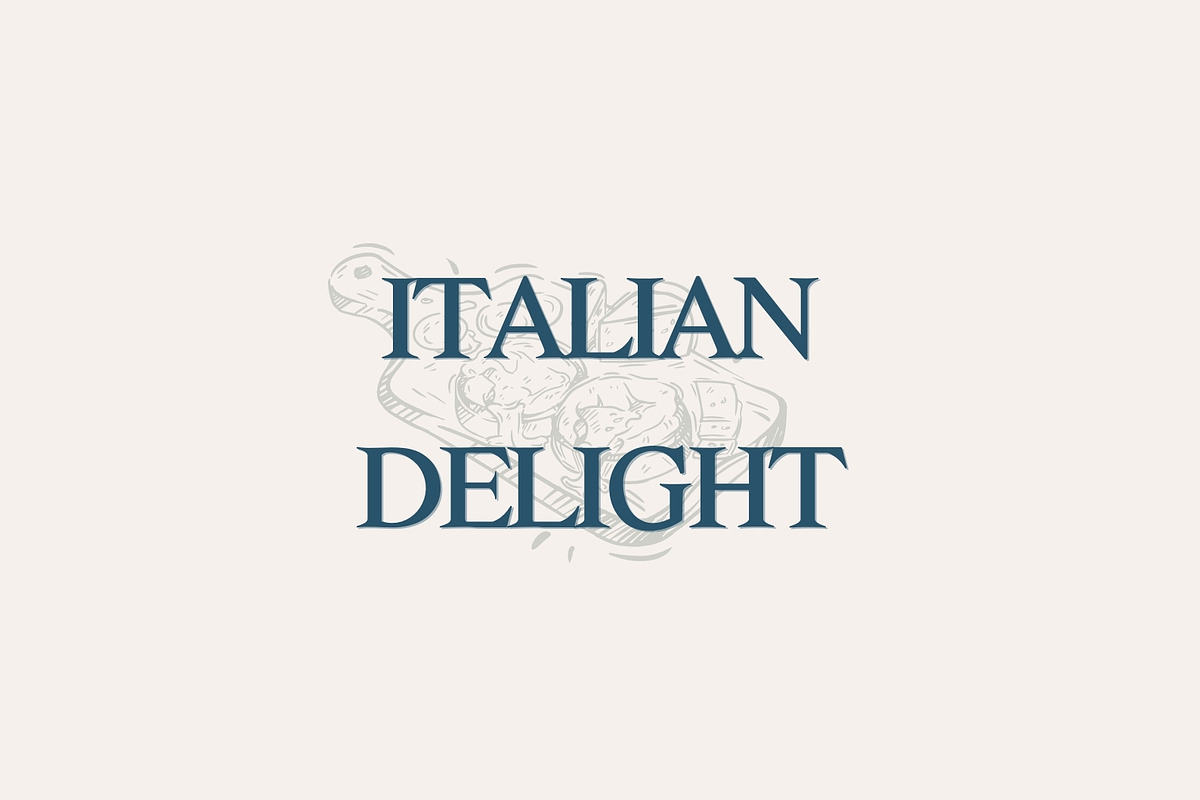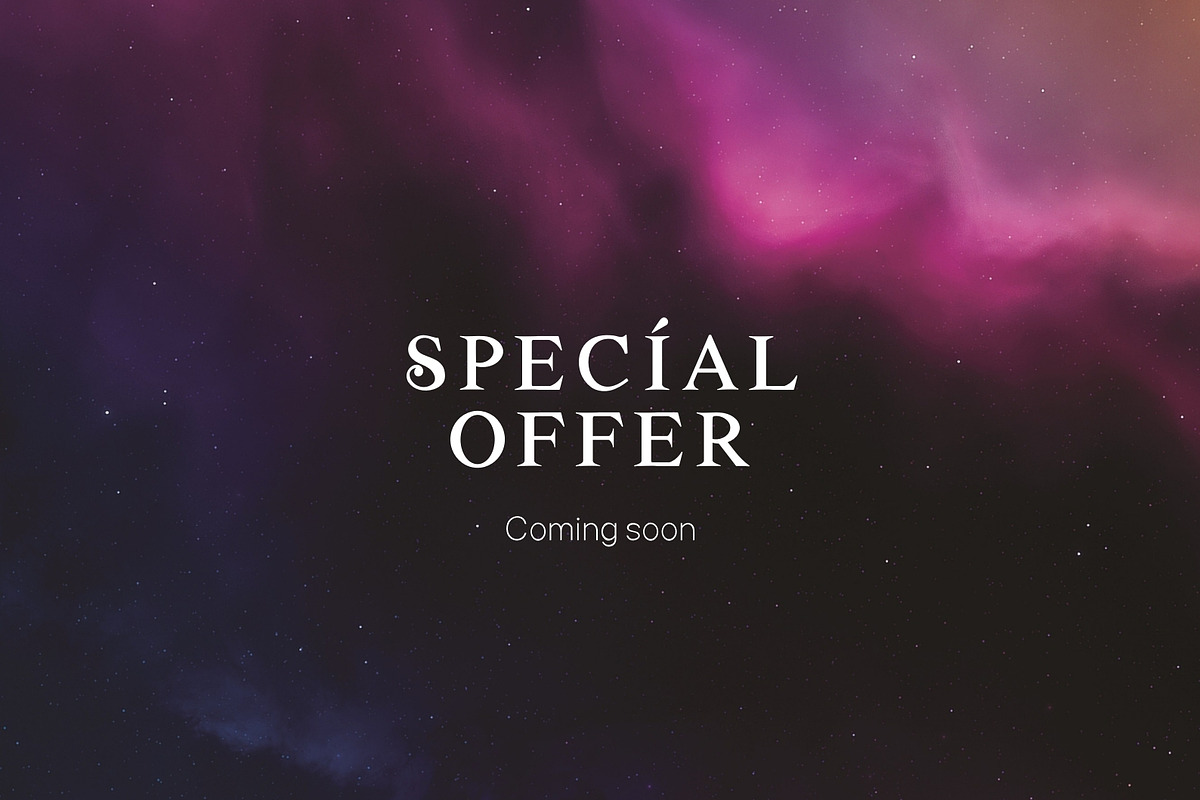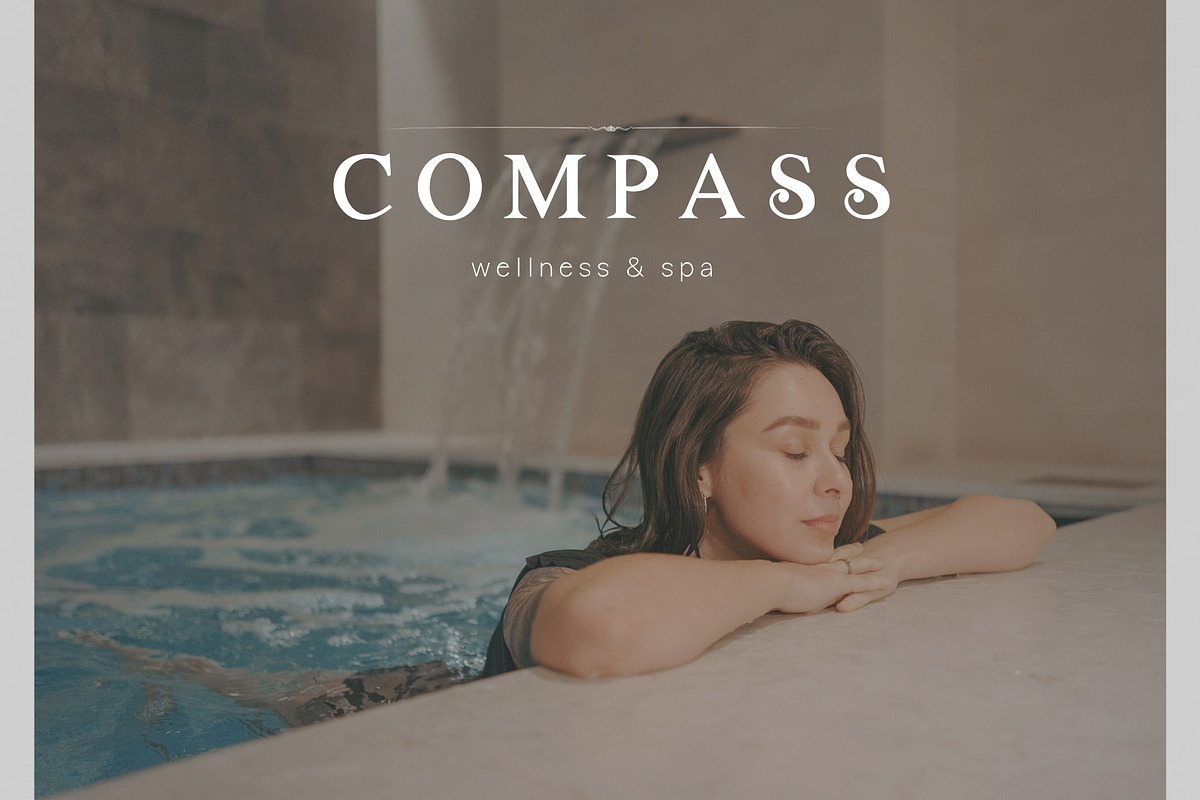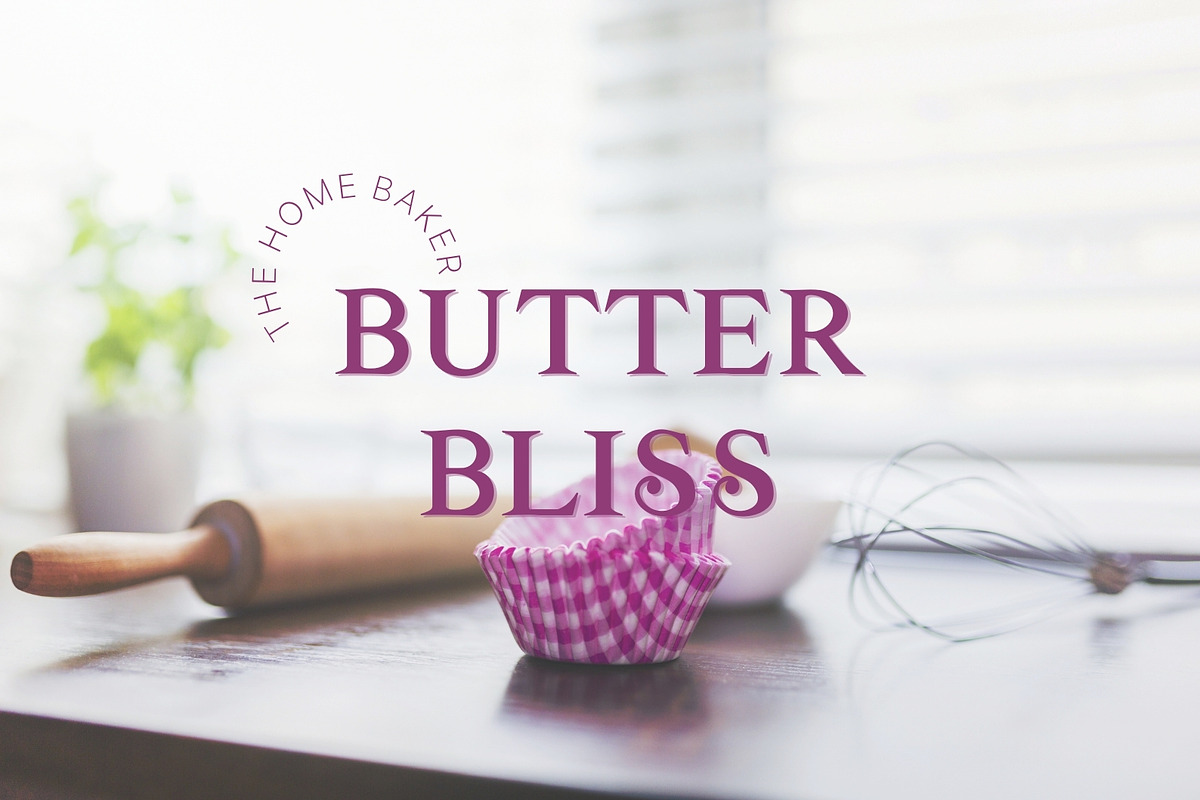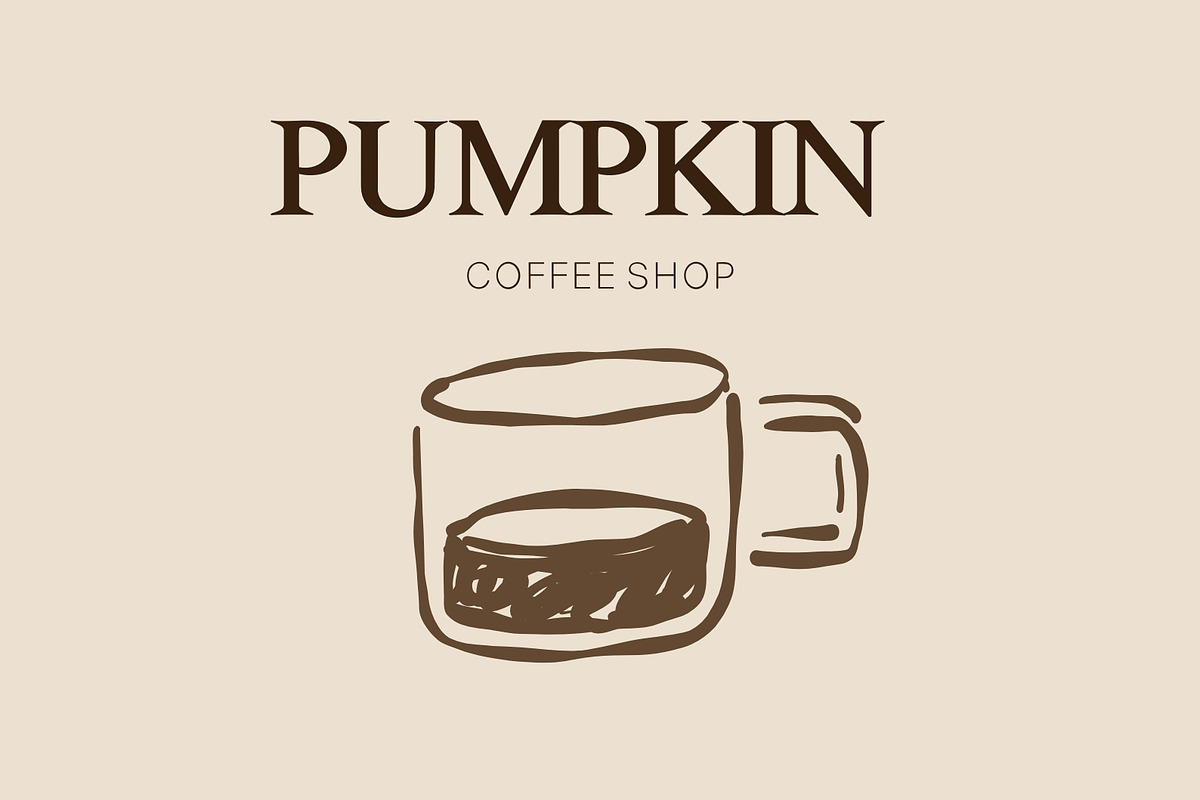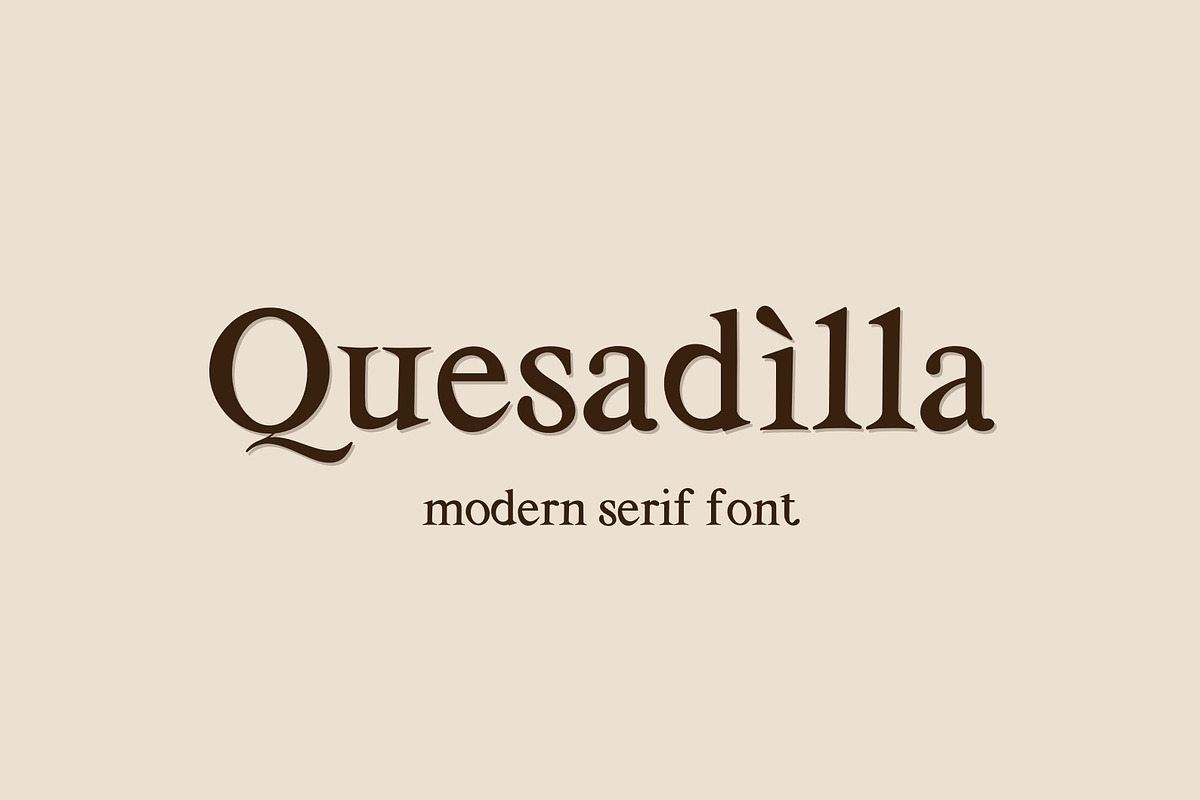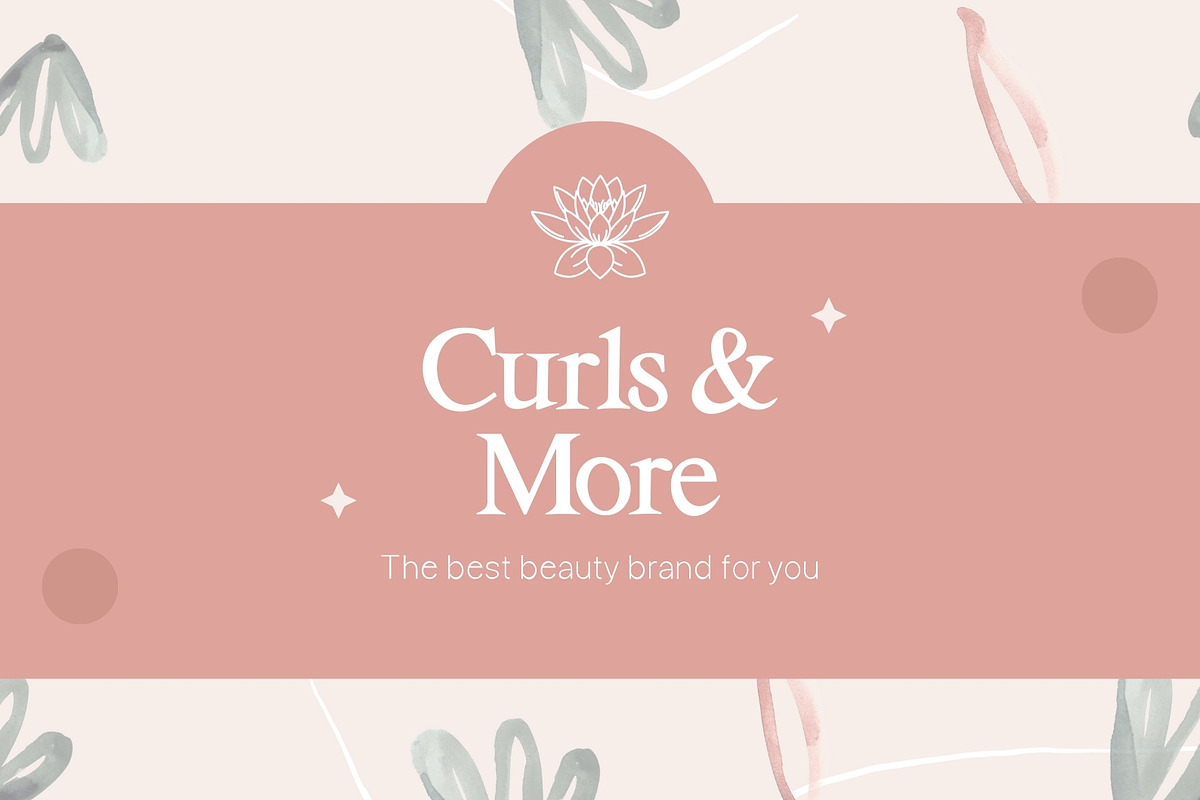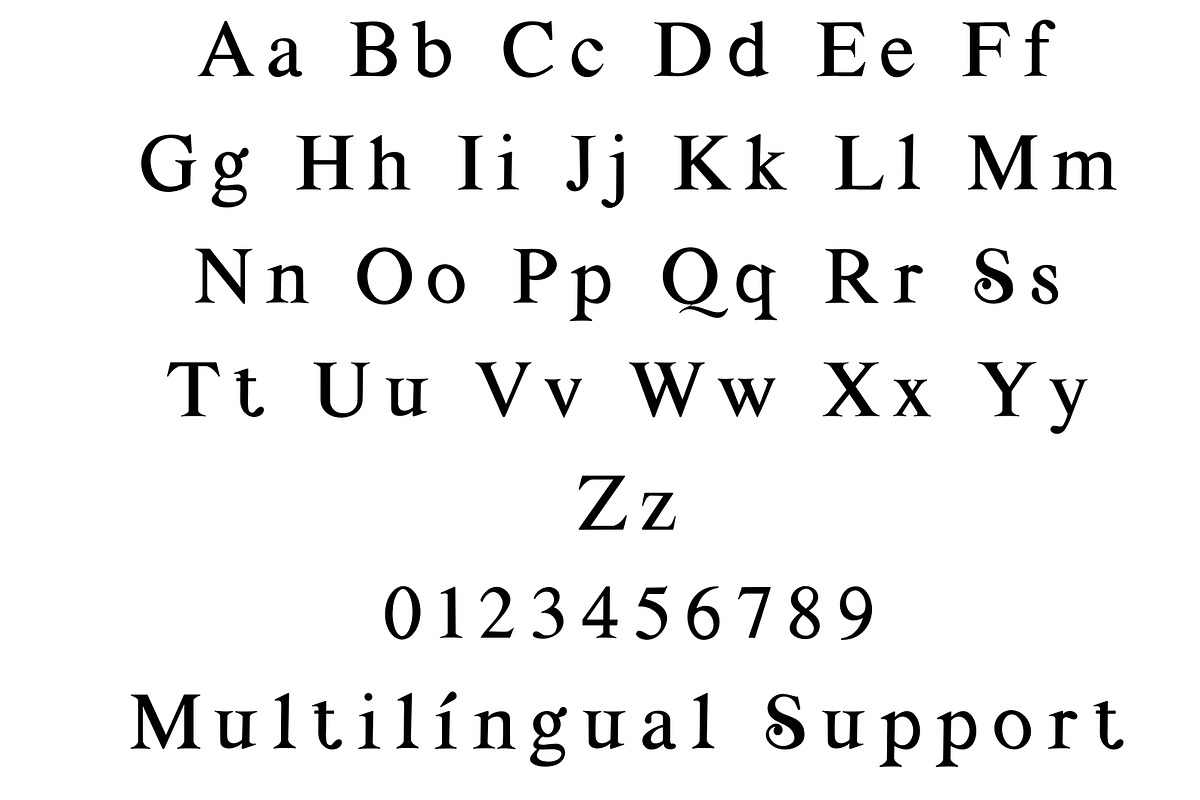
Quesadilla- modern serif
Quesadilla is a modern serif font.
This font is perfect for advertising, headings, blogs, logos, branding and more!
This font would pair well with a script style & sans serif, also it’s speak loud it’s own.
Features: Uppercase, Lowercase, Numbers & punctuation & Multilingual support.